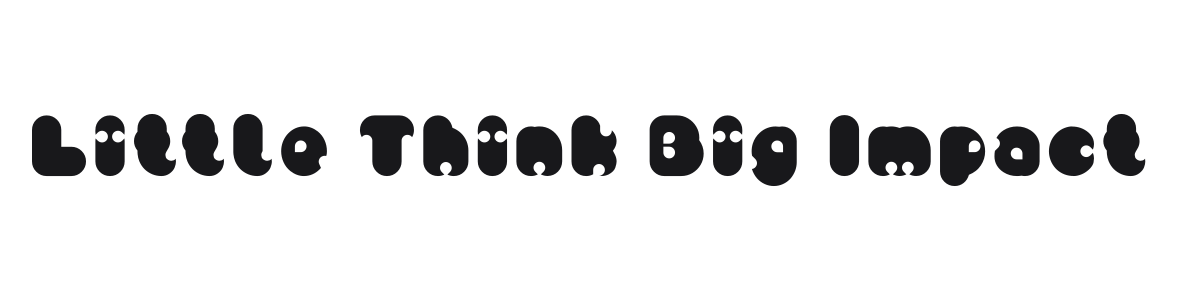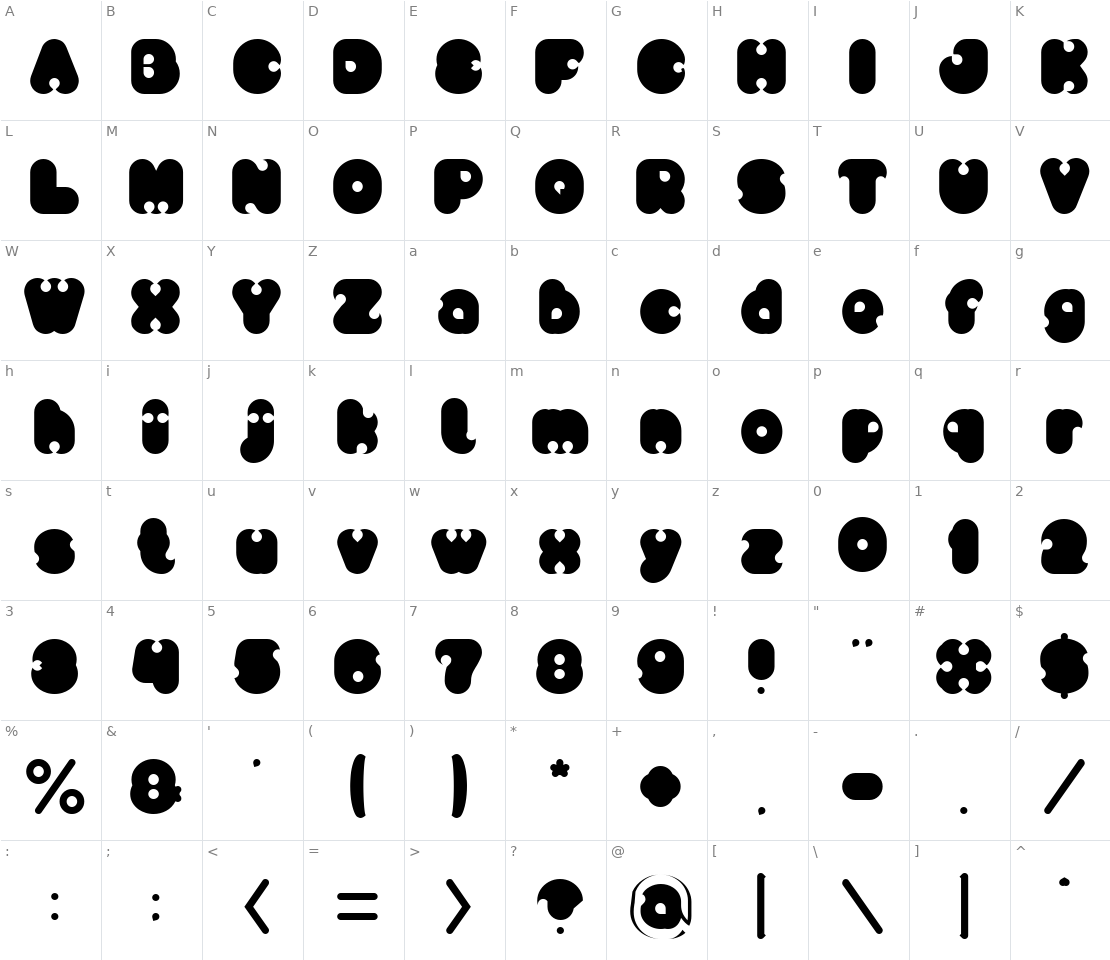
Little Think Big Impact
Little Think Big Impact is a chunky, bubble-style display face from weknow with super-heavy letterforms that feel inflated and playful. The rounded shapes and black weight give it a loud, almost toylike presence, built for headlines, posters, and children's projects where subtlety would just get in the way. It's the kind of font that fills a page and doesn't apologize for it.